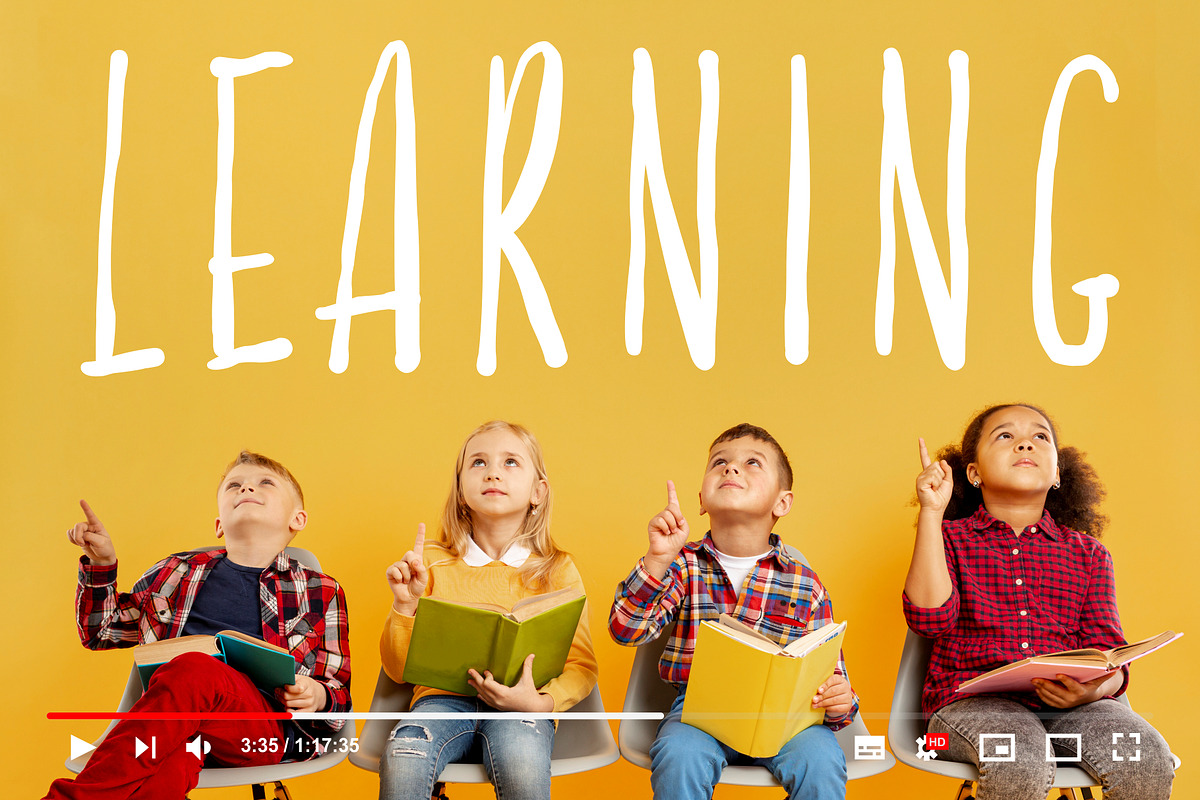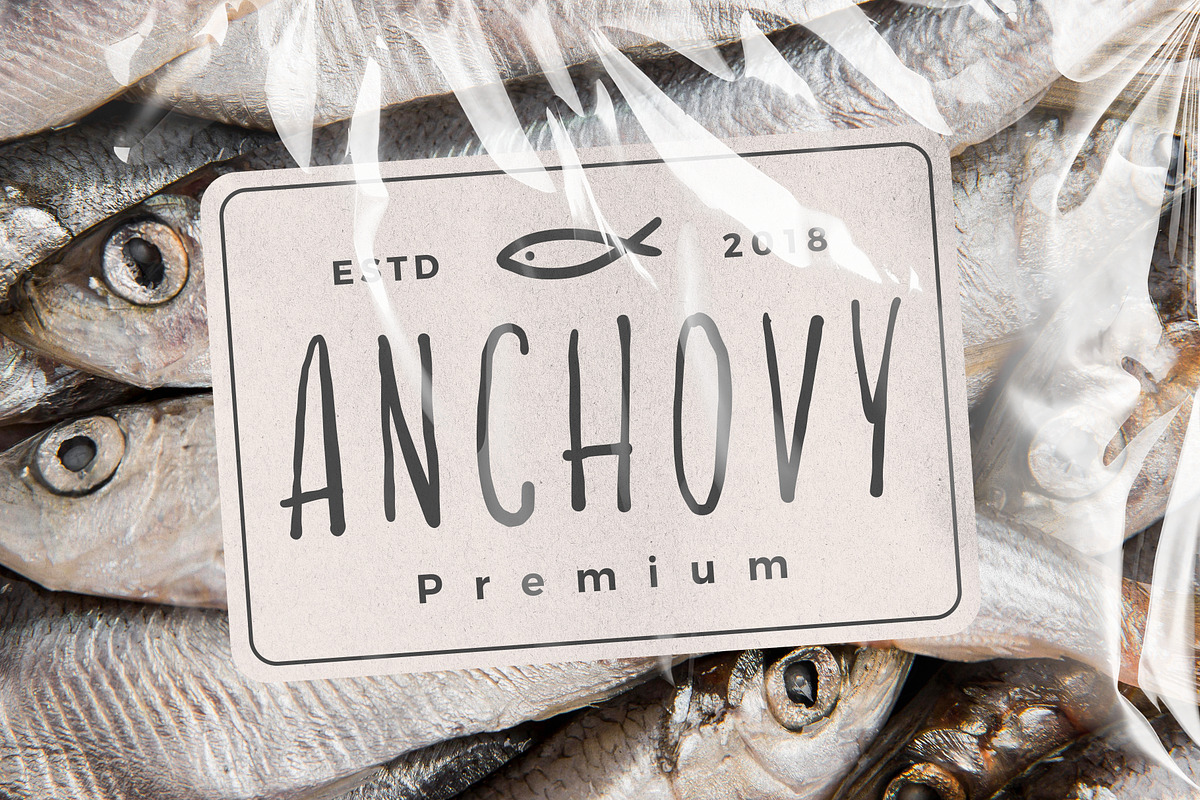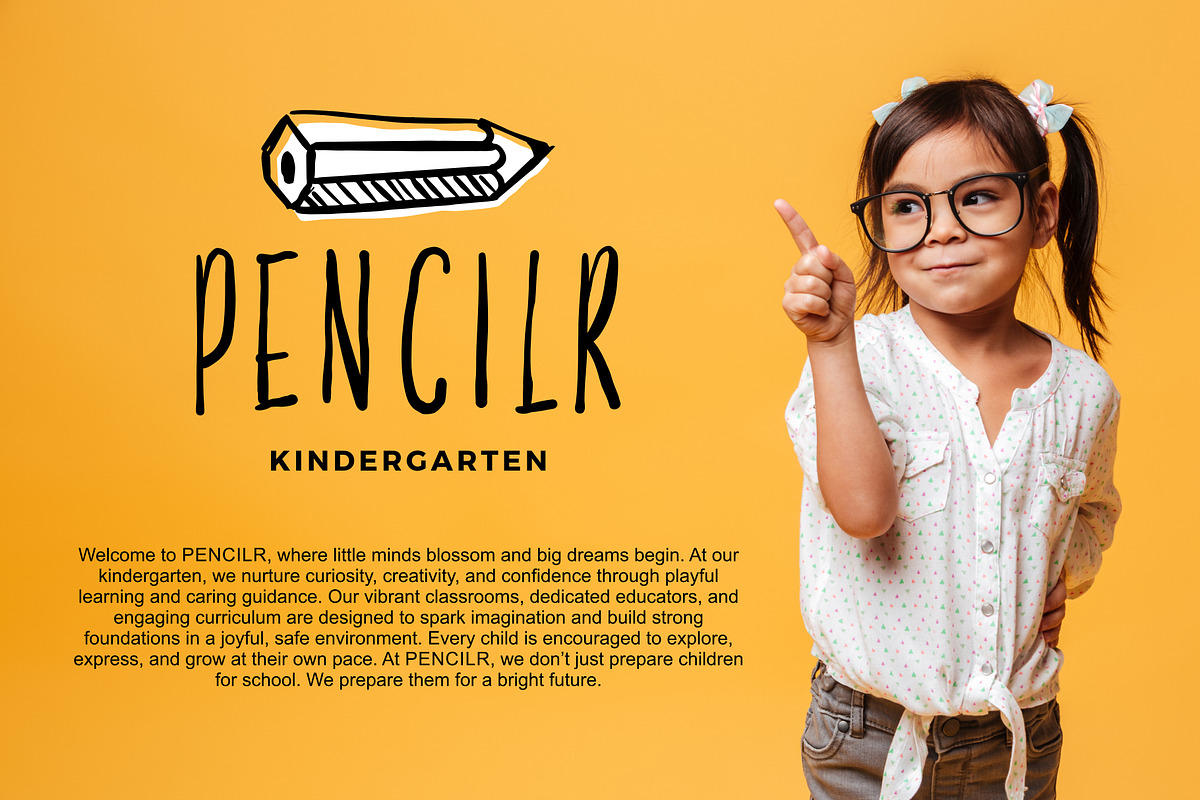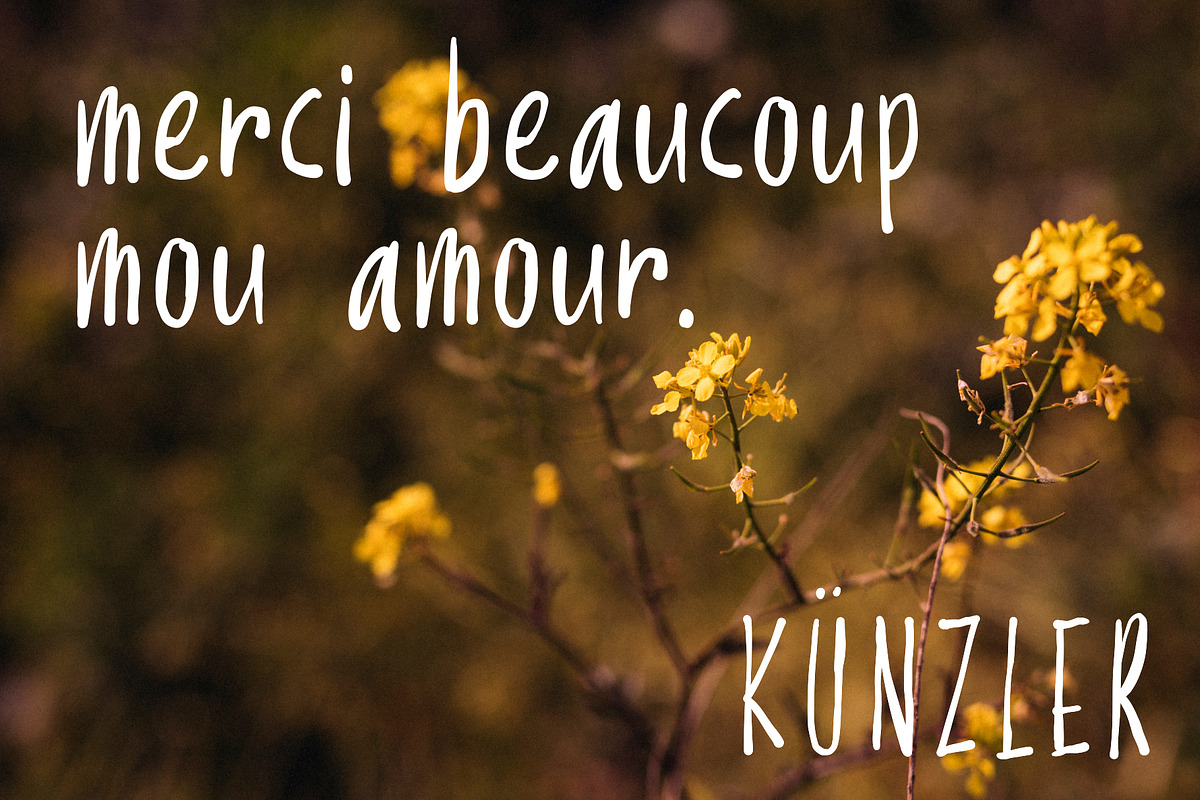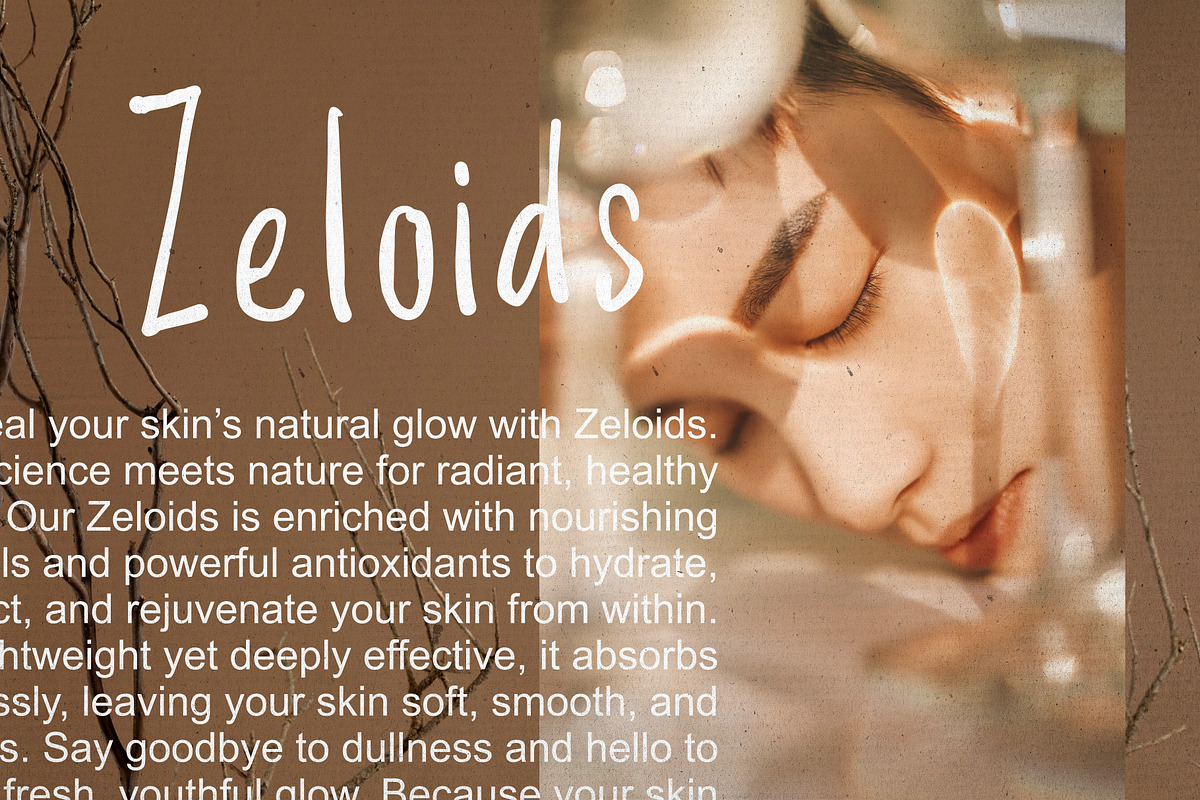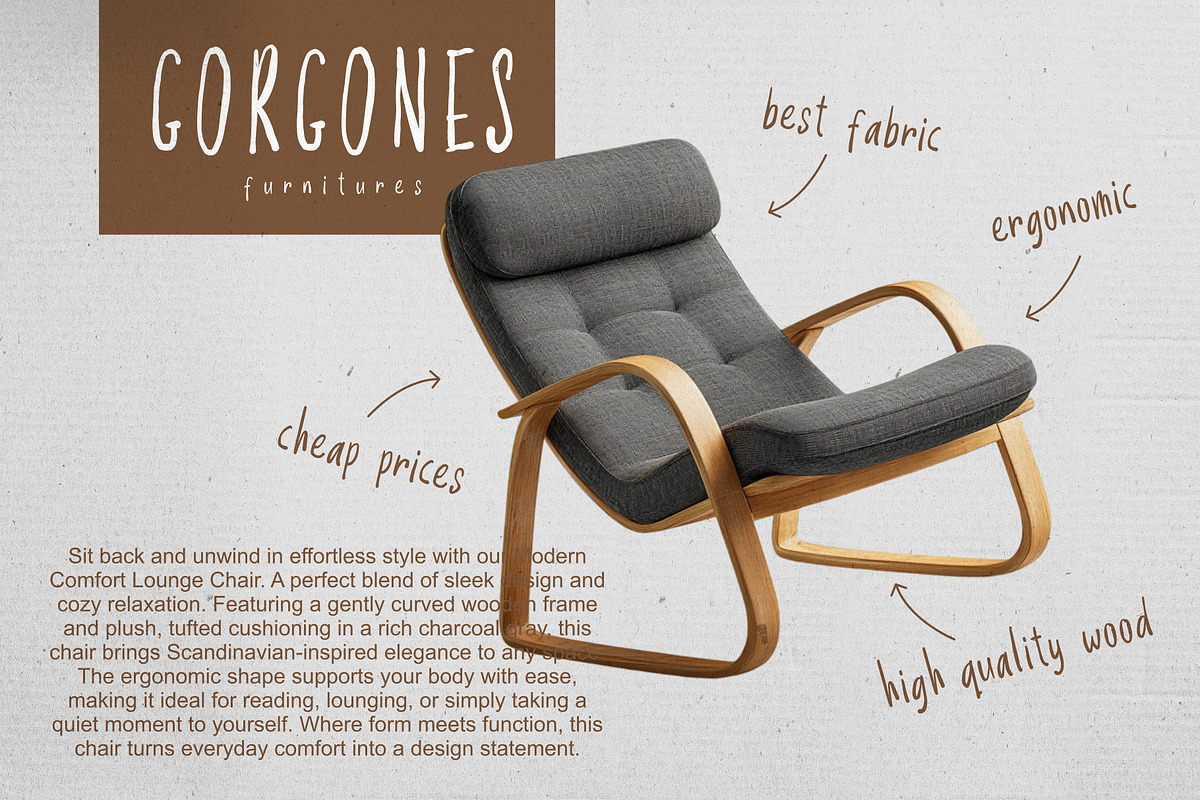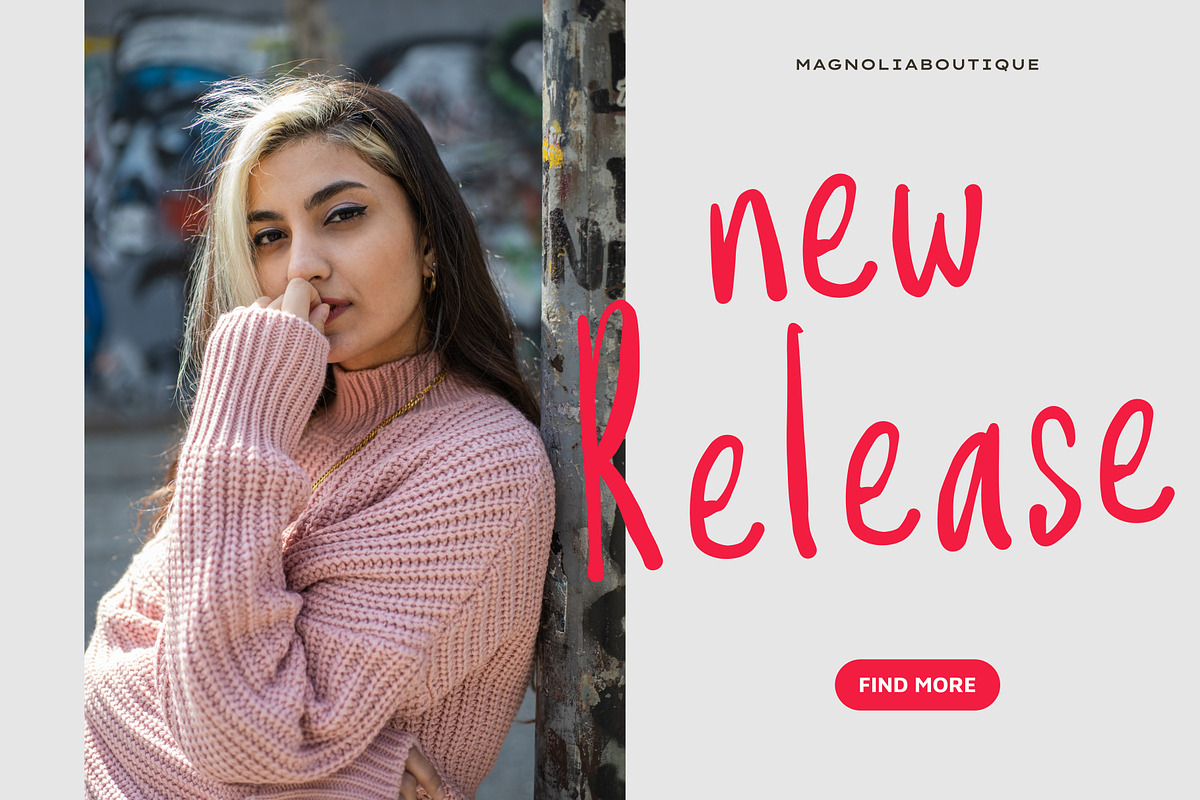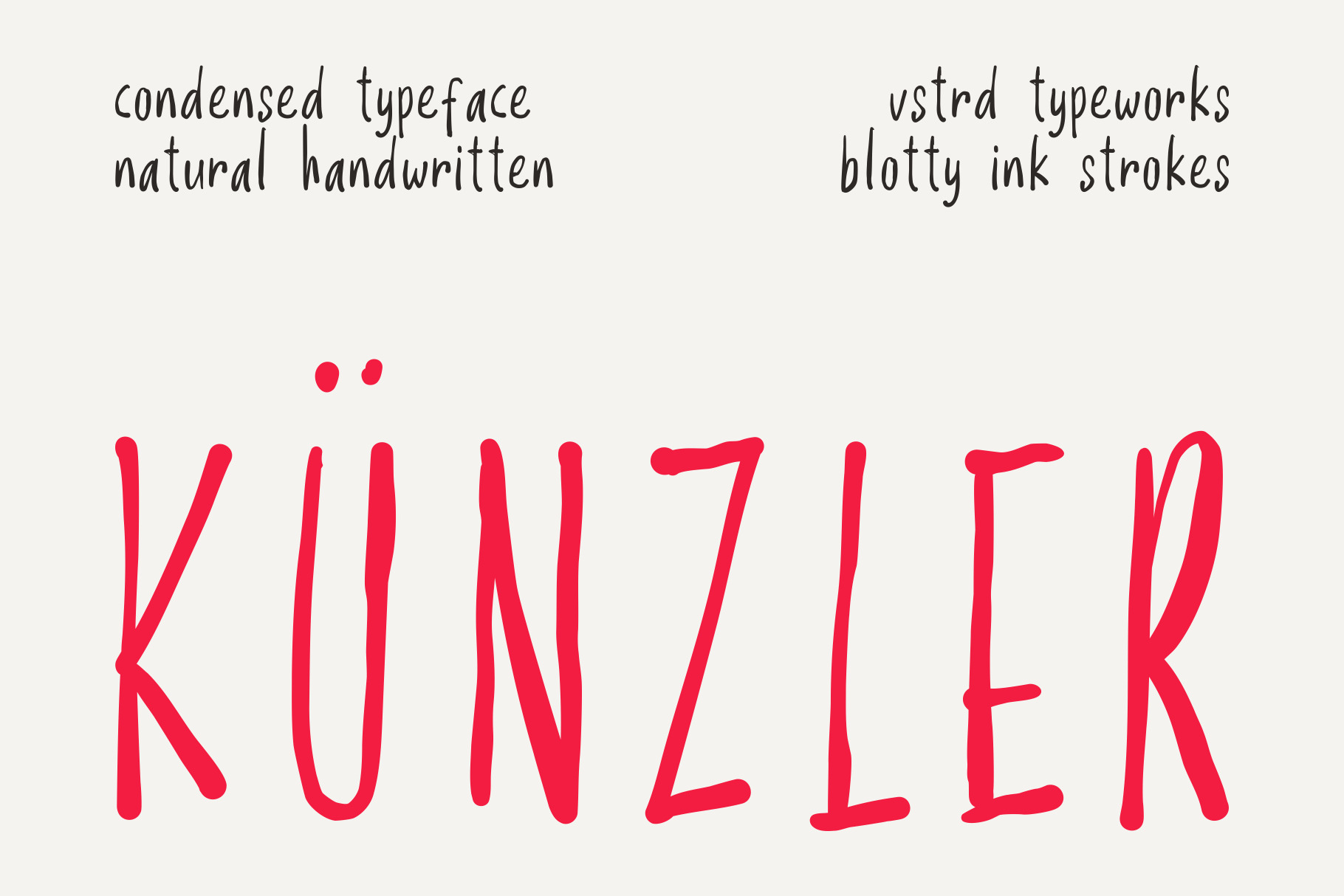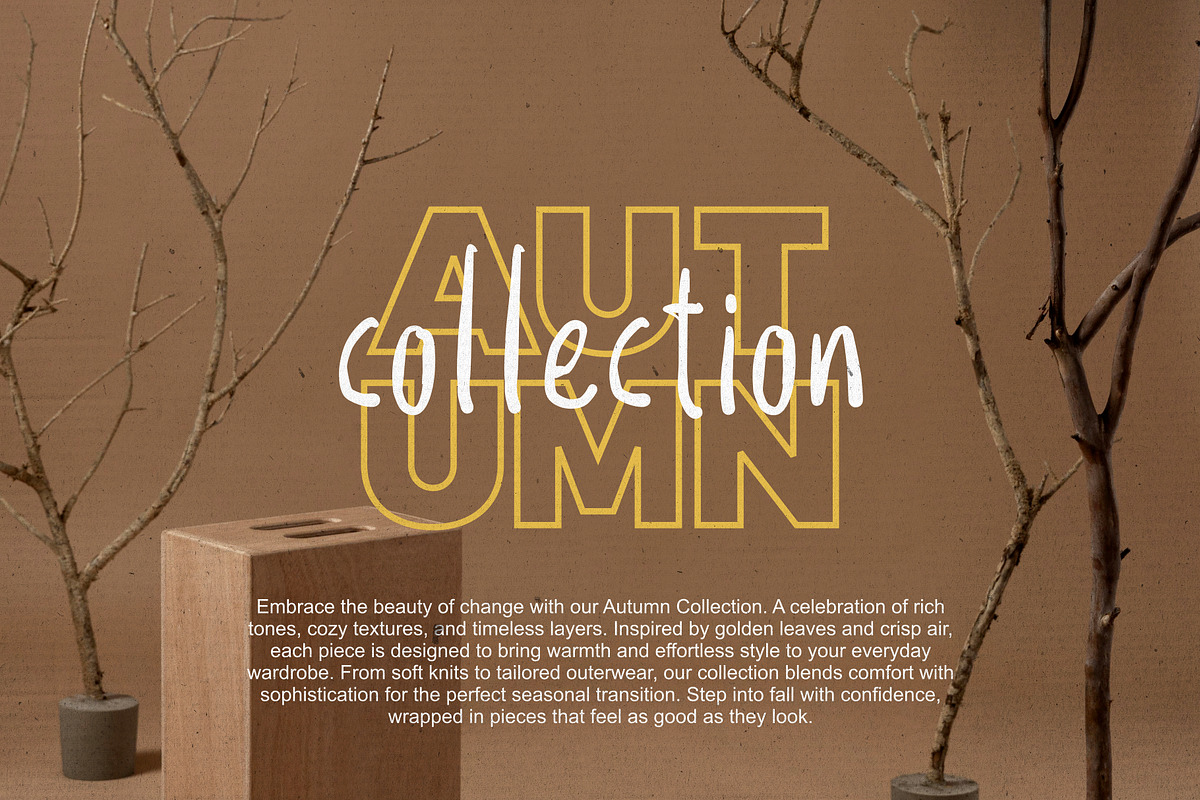
KÜNZLER – Condensed Handwritten Font
Say hello to KÜNZLER, a tall, condensed handwritten font bursting with character. Created from naturally drawn letters and featuring blotty ink textures, this font delivers a quirky, organic feel that pairs perfectly with doodle graphics and creative layouts.
With its playful rhythm and clean yet expressive form, KÜNZLER is ideal for both fun campaigns and kid-friendly projects. Whether you're designing for logos, book covers, food & beverage branding, promotional materials, video titles, product packaging, quotes, or gritty overlays, this font brings warmth, energy, and charm to every design.
- Tall, condensed handwritten style
- Natural ink blot texture for an authentic, handcrafted feel
- Great companion to doodles and illustrated graphics
- Perfect for both playful and creative brand aesthetics
Bring a bit of fun and friendliness to your next project with KÜNZLER – a font that feels hand-touched and heart-made.